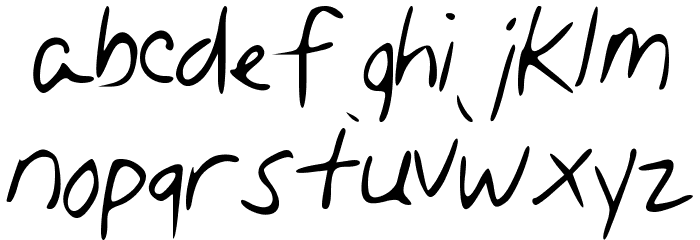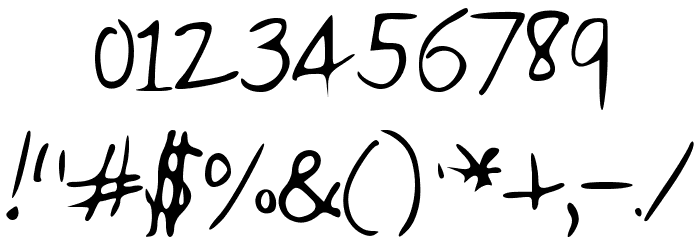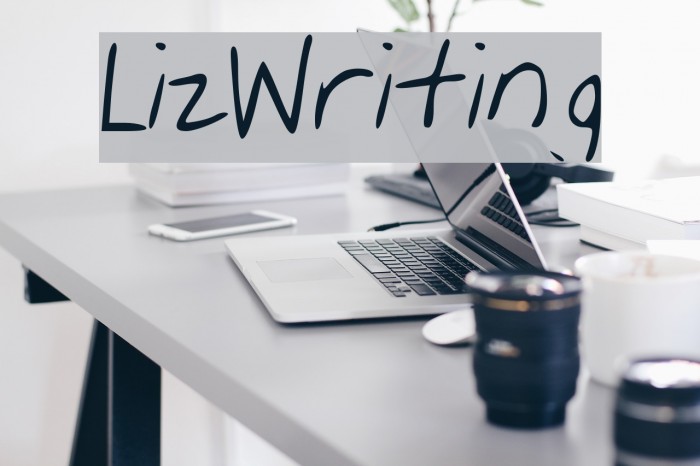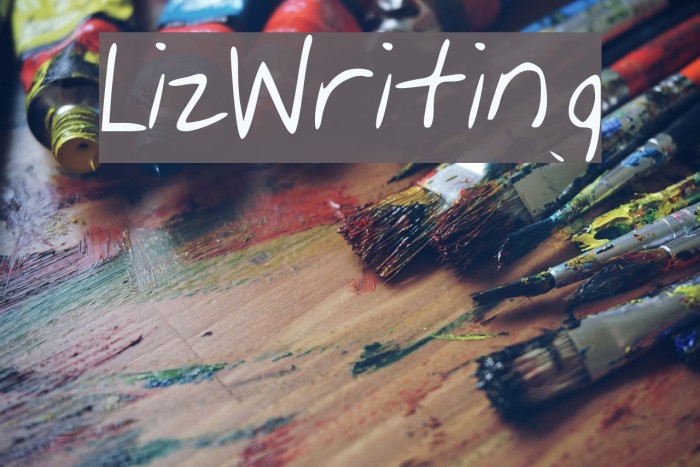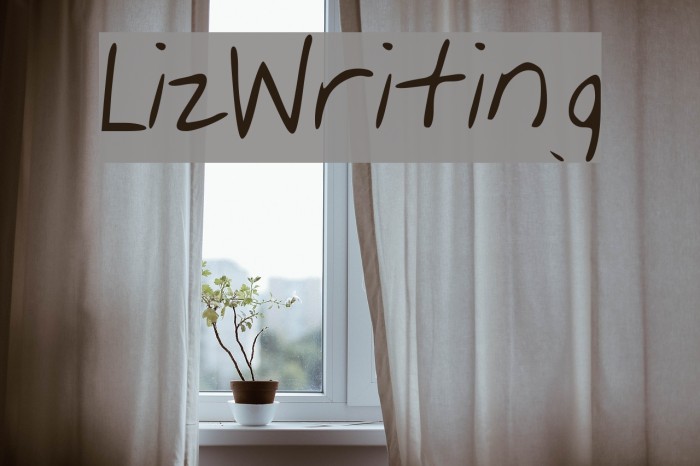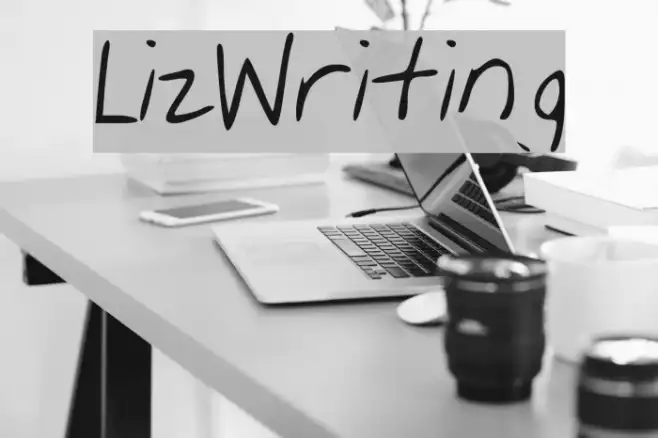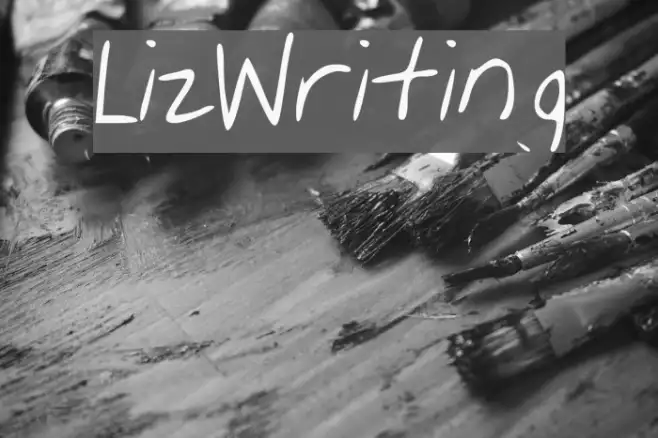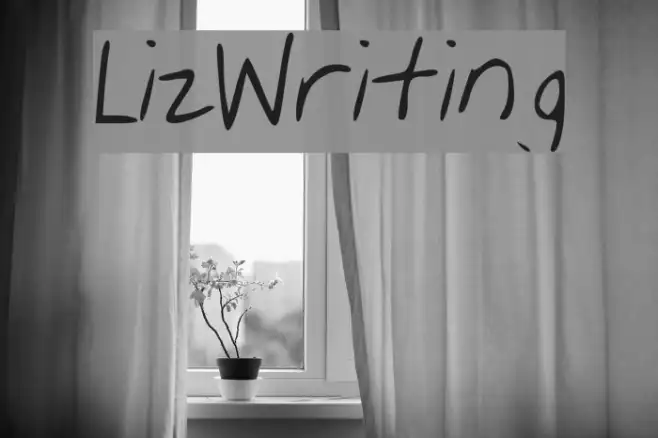
Liz_Writing Font
This font features a playful and casual handwritten style, characterized by its uneven strokes and slightly tilted letters. The uppercase letters are bold and prominent, while the lowercase letters maintain a consistent flow, adding a personal touch to the text. The numbers are clear and legible, matching the overall informal aesthetic. Special characters are creatively designed, enhancing the font's unique personality. The font's organic and spontaneous appearance makes it ideal for projects that require a human touch, such as personal notes, invitations, or creative branding.
A playful handwritten font with uneven strokes and a casual style.
- Proposed Projects: Ideal for personal notes, invitations, creative branding, and informal communications.
- Category: Handwritten
- Overall Style: Casual
- Use Case: Invitations, Personal notes, Creative branding